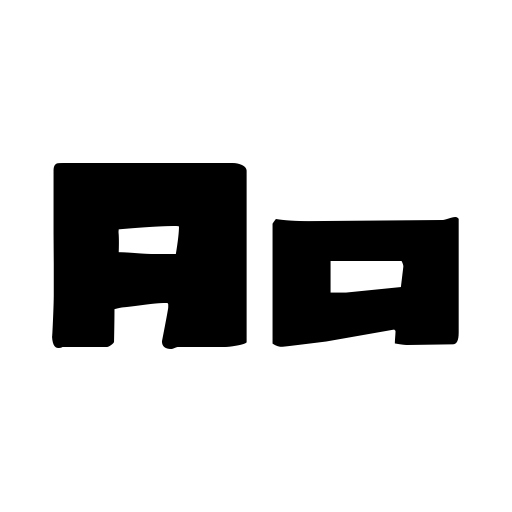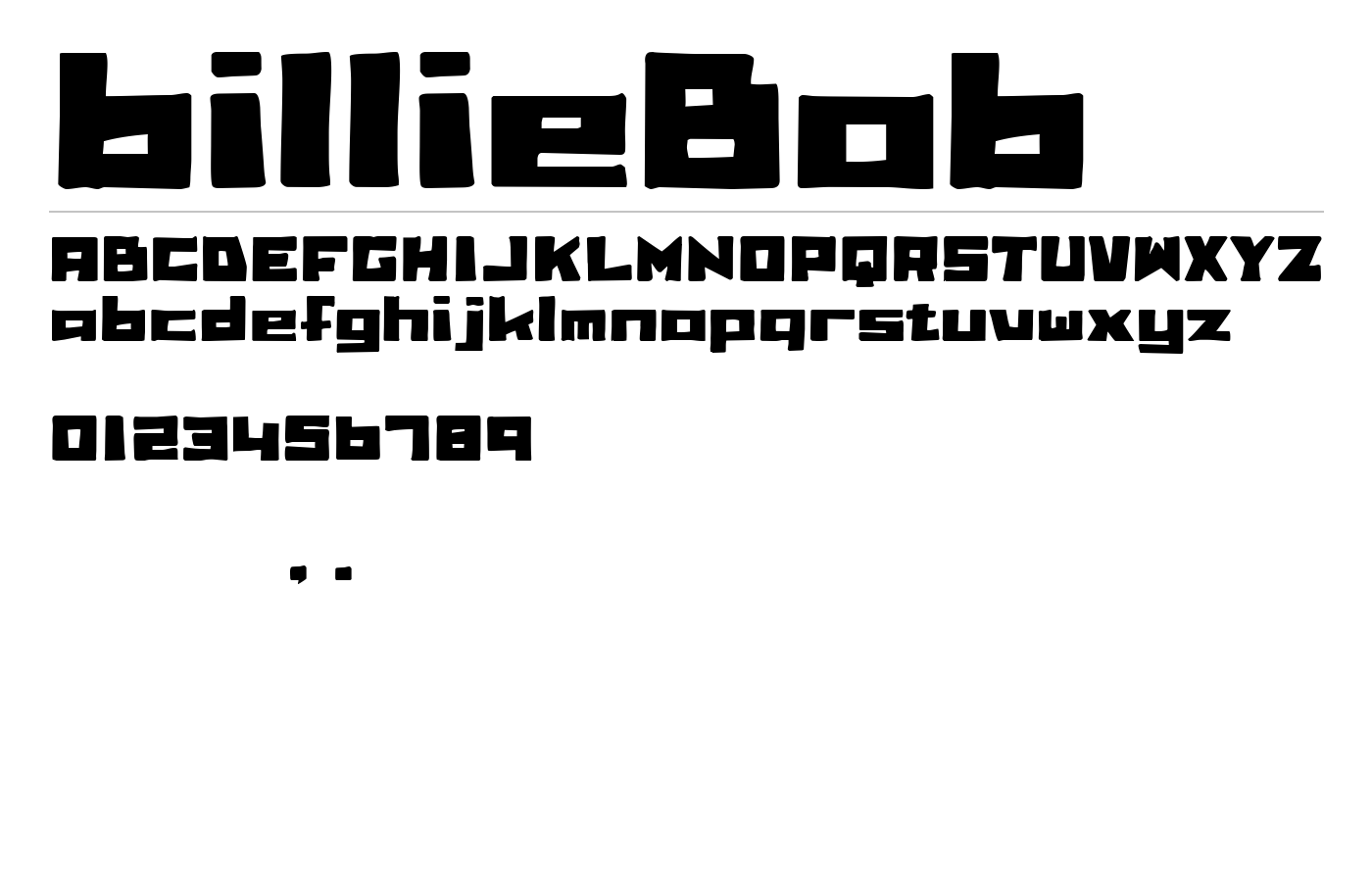
billieBob is a bold, blocky sans serif font with a strong, playful personality and chunky letterforms that create a casual yet impactful look. Its irregular shapes and slightly rough edges give it a handcrafted, quirky vibe, making it perfect for fun headlines, creative branding, and designs that need a standout, informal style. This font works well where attention-grabbing and uniqueness are key, especially in posters, logos, and youthful packaging.
billieBob Font
About billieBob Font
| Designer | J O E B O B graphics |